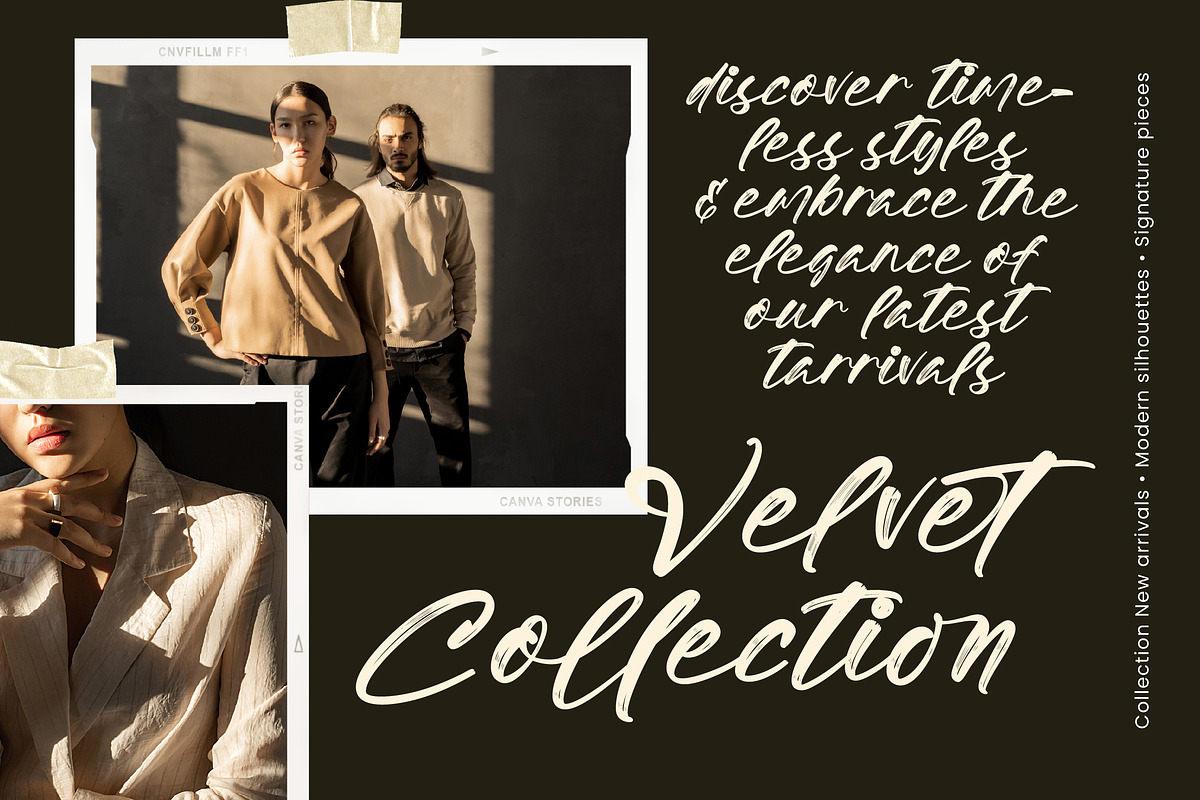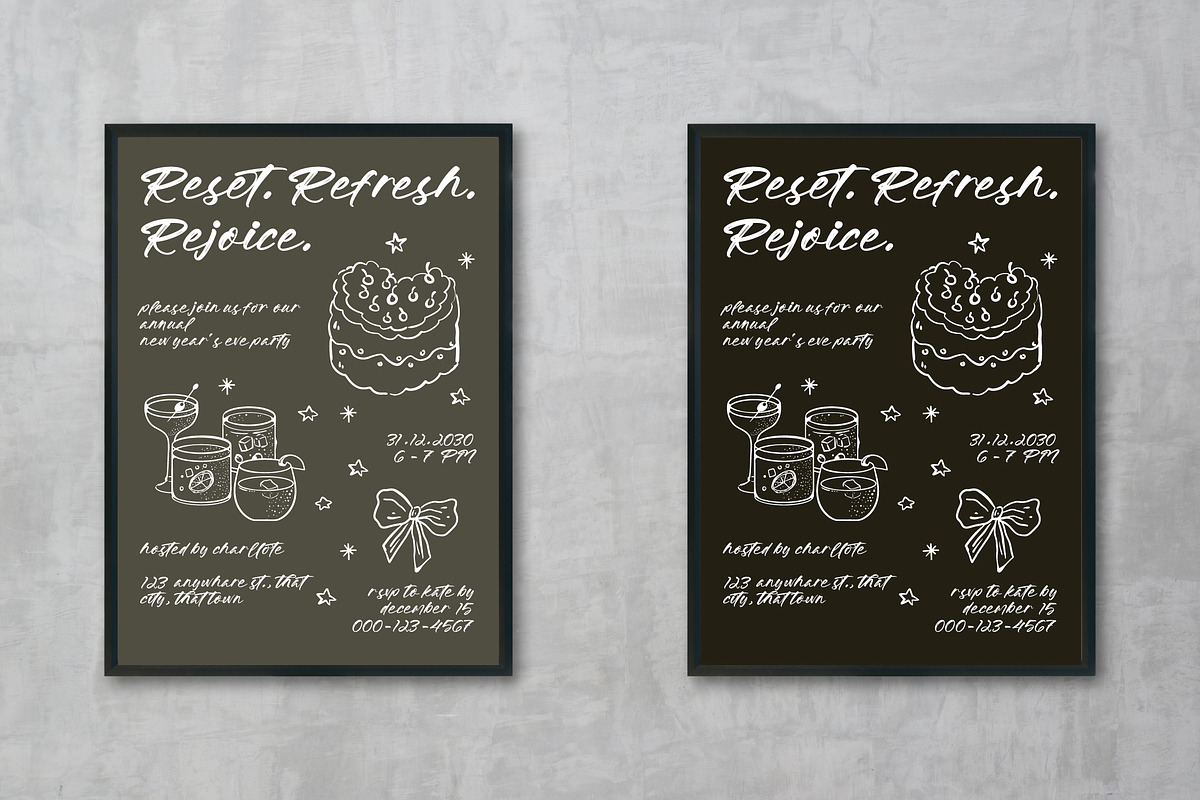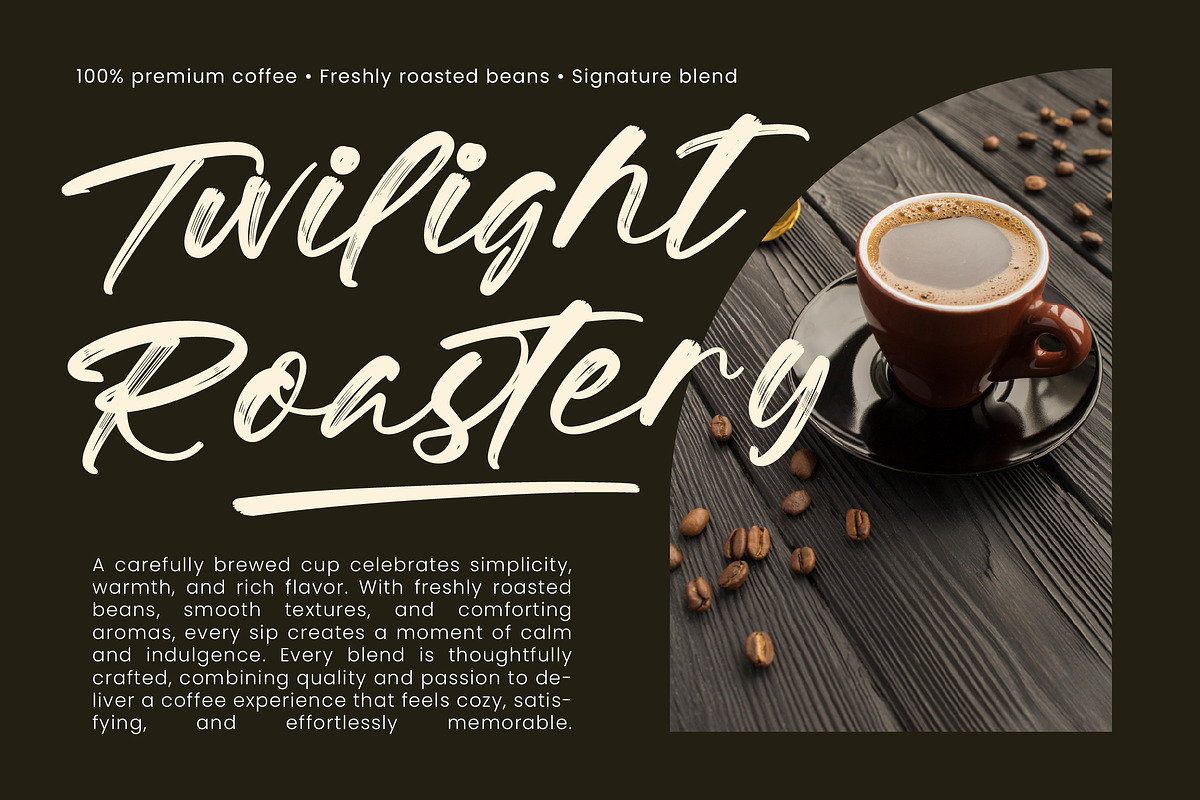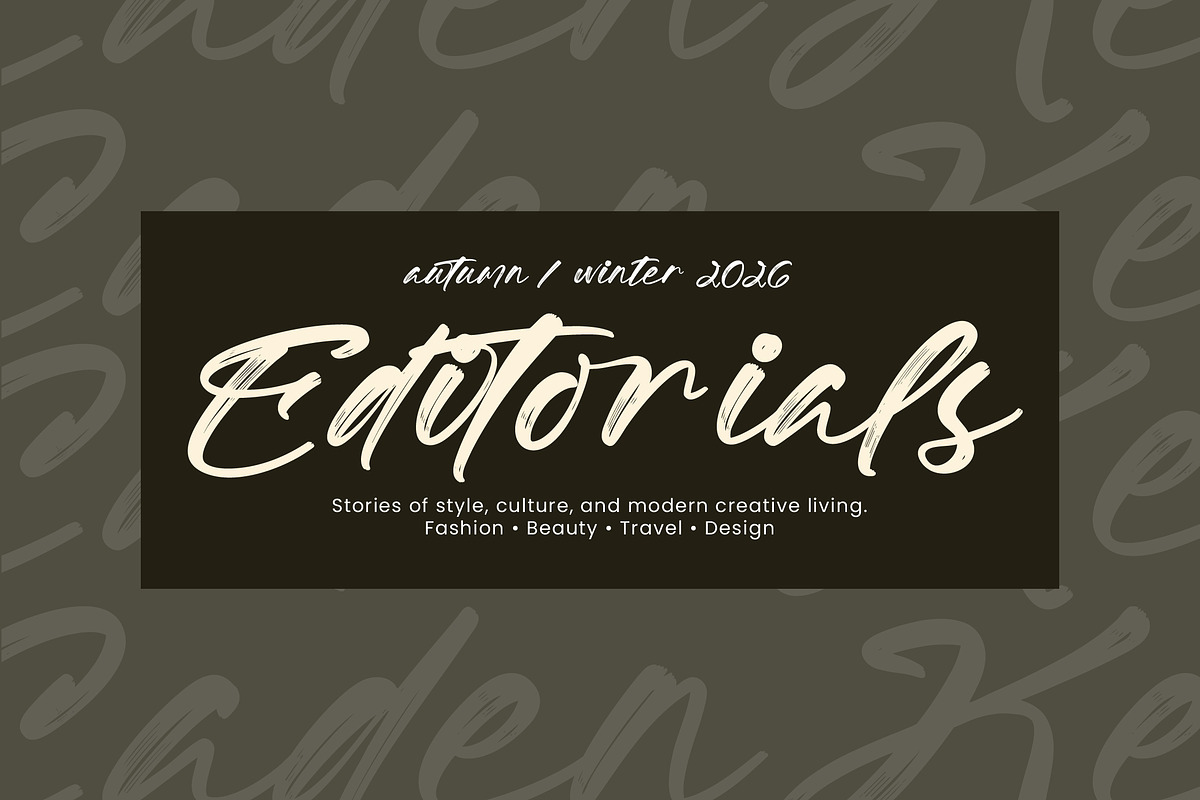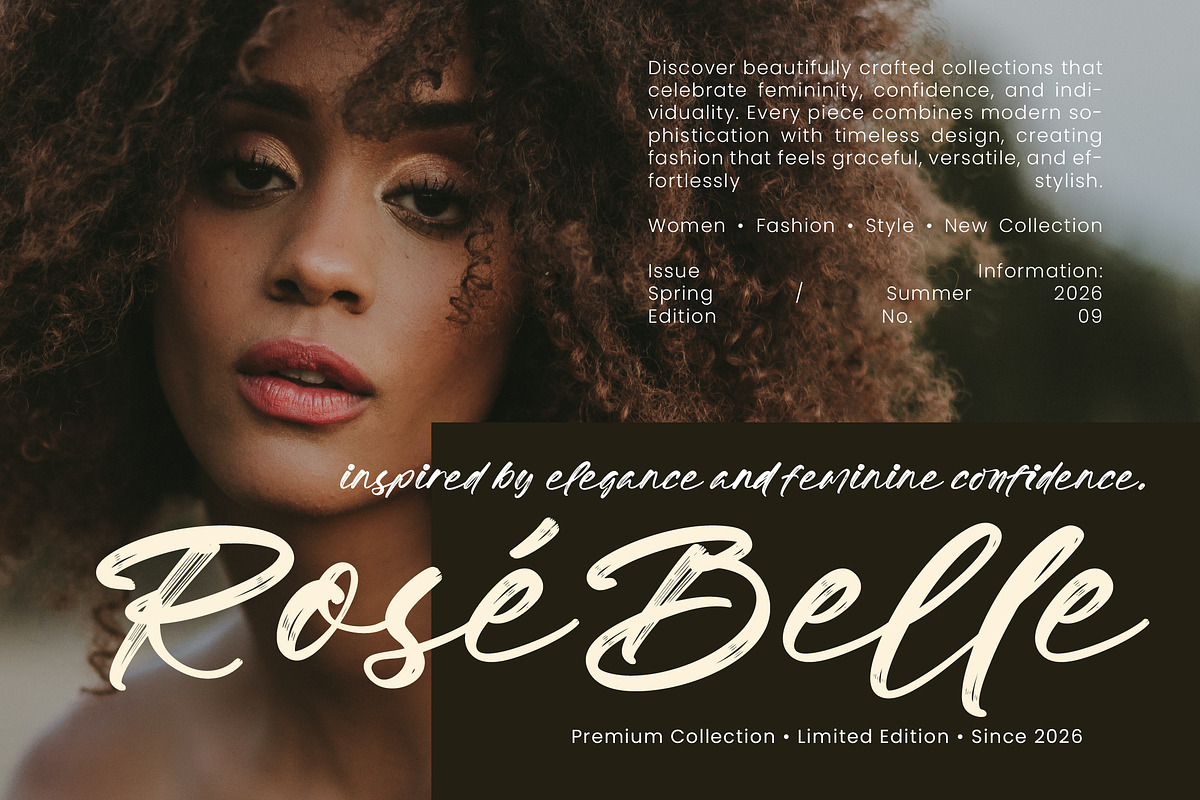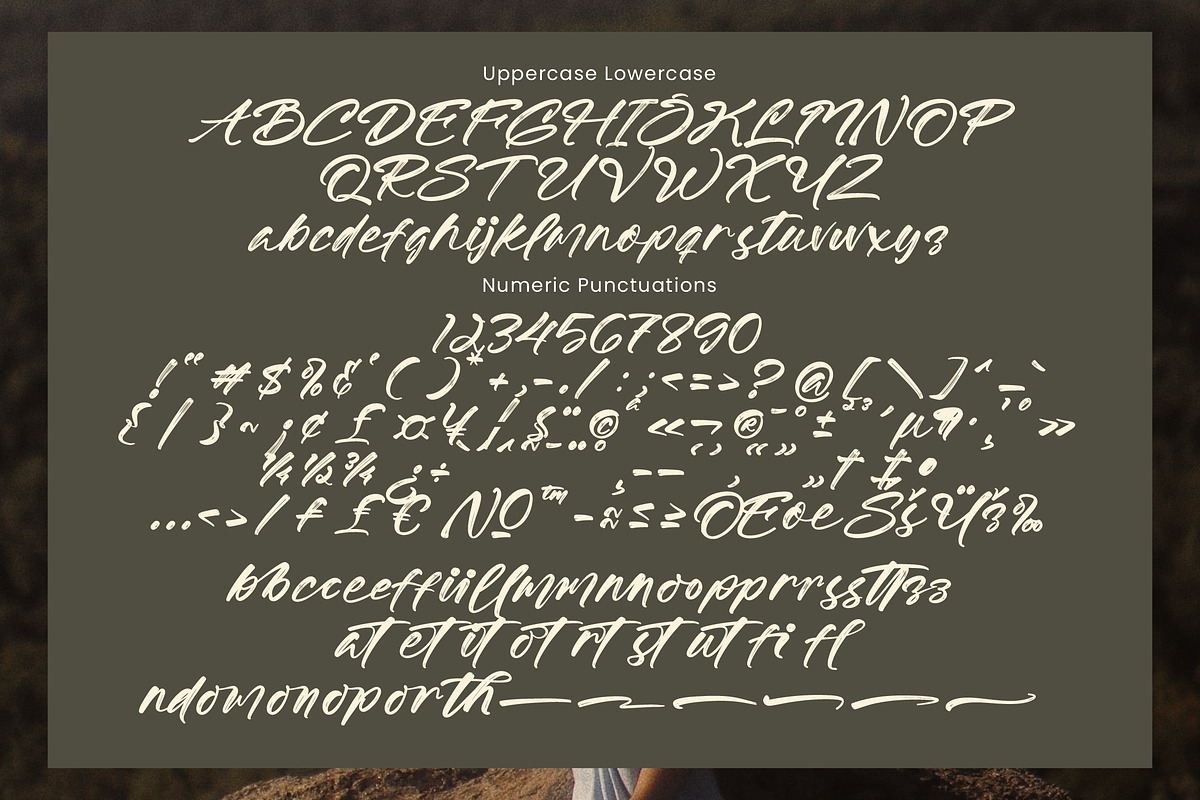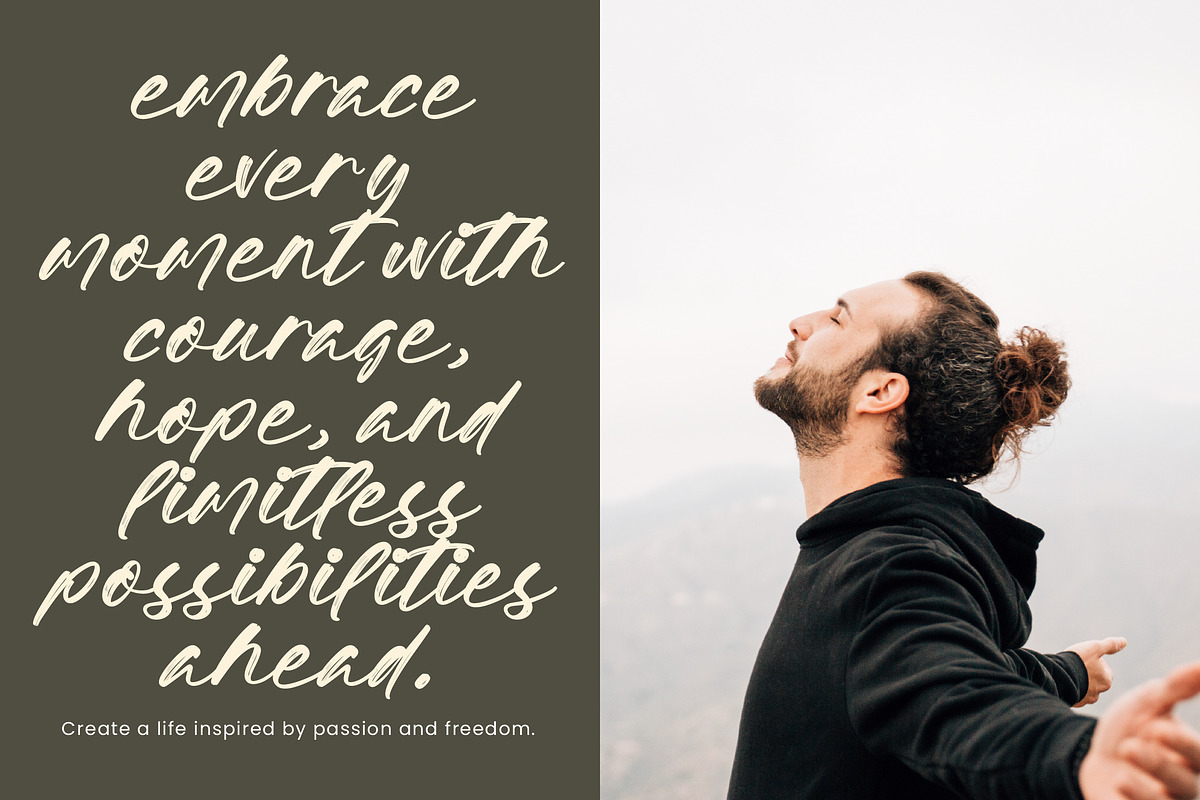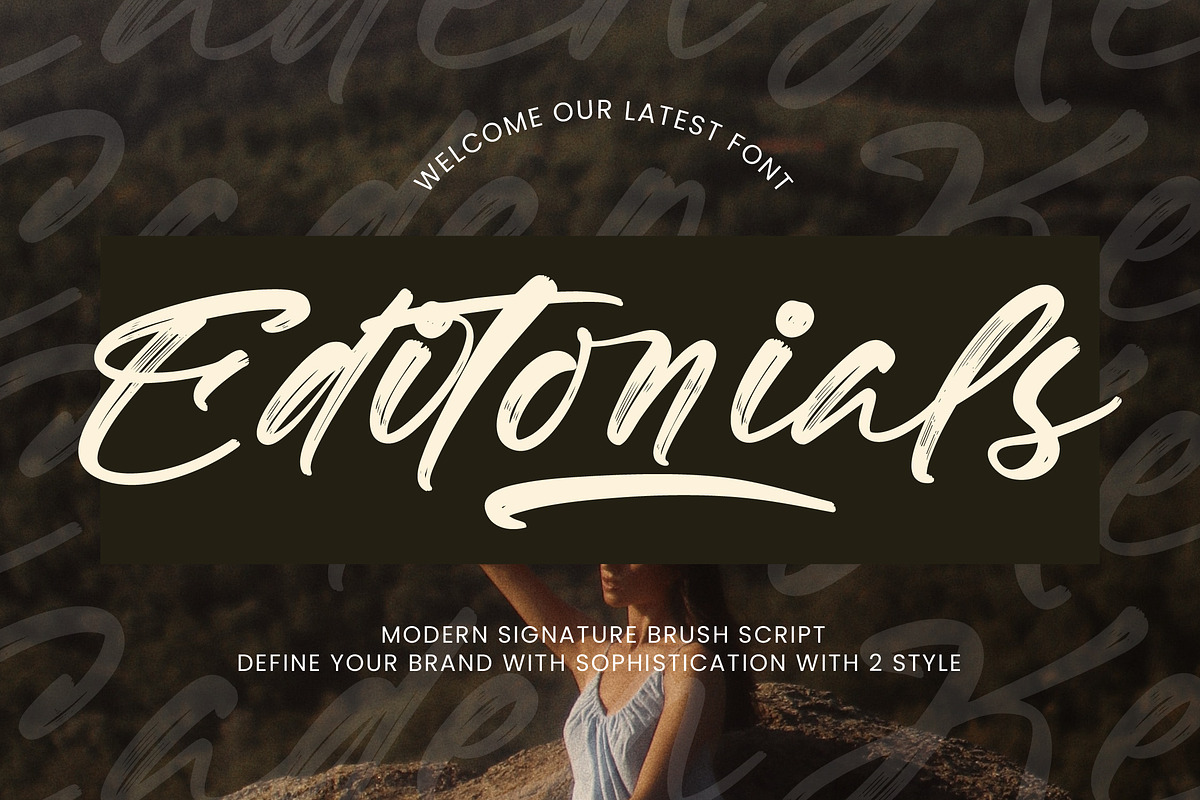
Editonials Modern Signature Brush
Editonials is a modern signature brush script font crafted to bring sophistication, confidence, and artistic expression to your designs. Featuring authentic brush textures, fluid strokes, and elegant handwritten movement, this typeface delivers a premium look that feels both stylish and professional.
Designed for modern branding and high-end visual identities, Editonials combines the natural energy of brush lettering with refined signature aesthetics. Its expressive character shapes and handcrafted details make it perfect for logos, packaging, editorial projects, social media content, fashion branding, and luxury marketing materials.
Available in two styles, Editonials offers flexibility for a wide range of creative applications while maintaining a distinctive and memorable personality. Whether used for bold headlines or elegant signatures, this font helps your designs communicate authenticity and sophistication.
Perfect for: • Luxury Branding • Signature Logos • Editorial Design • Fashion Branding • Product Packaging • Social Media Graphics • Advertising Campaigns • Beauty & Cosmetic Brands • Lifestyle Projects • Premium Marketing Materials
Features: • 2 Font Styles • Uppercase & Lowercase Characters • Numbers & Punctuation • Multilingual Support • Authentic Brush Texture • Elegant Signature Flow • Stylish Ligatures • PUA Encoded
Editonials is the ideal brush signature font for designers seeking a sophisticated, expressive, and modern typeface that elevates every branding project.